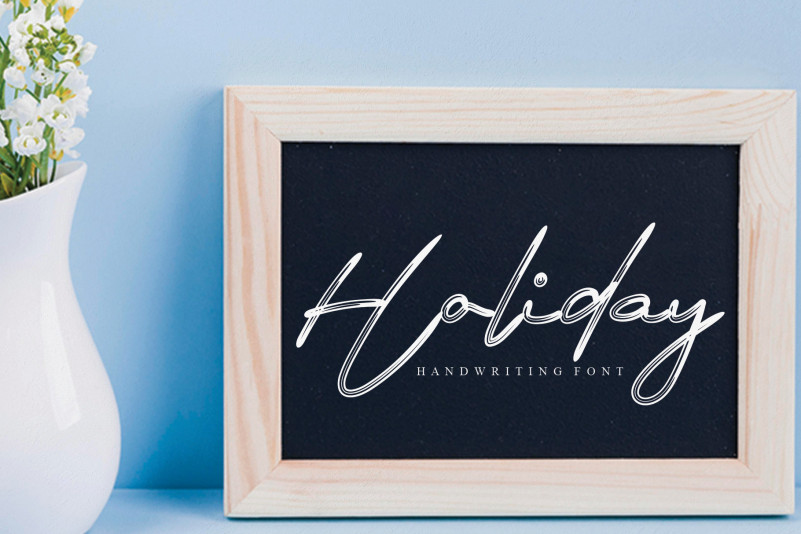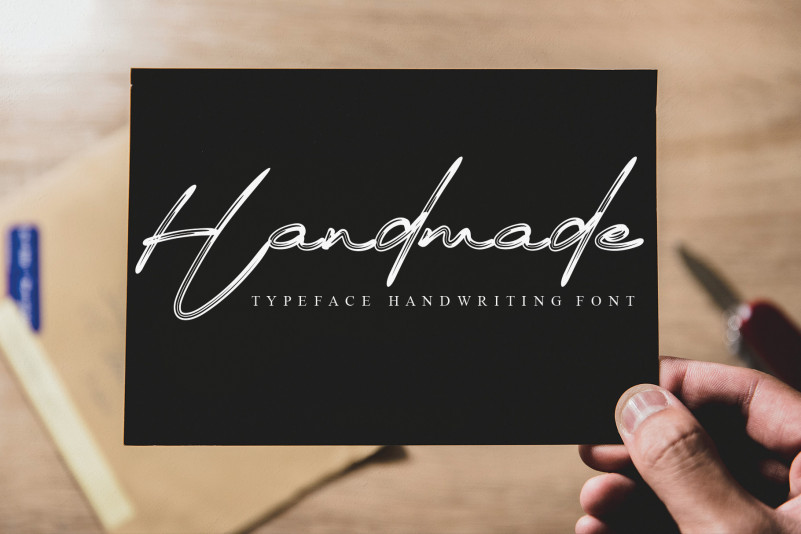
Signature December Script Font
Signature December Script Font is a beautiful and cursive handwritten font. It looks stunning on wedding invitations, thank you cards, quotes, greeting cards, logos, business cards and every other design which needs a handwritten touch.